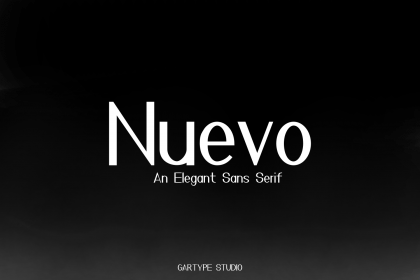
Nuevo Sans Font Family
Nuevo is a new elegant sans serif with elegant style which will help you make your needs as elegant as magazine covers,poster,signature,logo,tagline,title,and many more.
Gartype Studio,2019